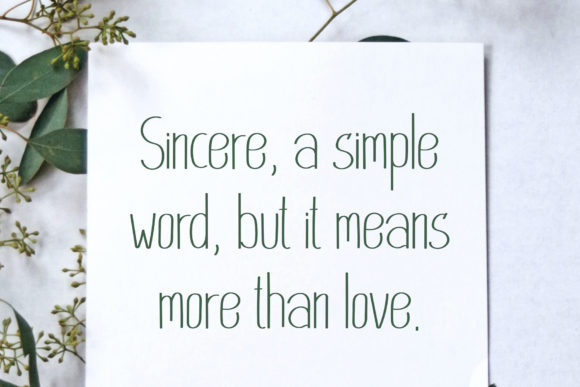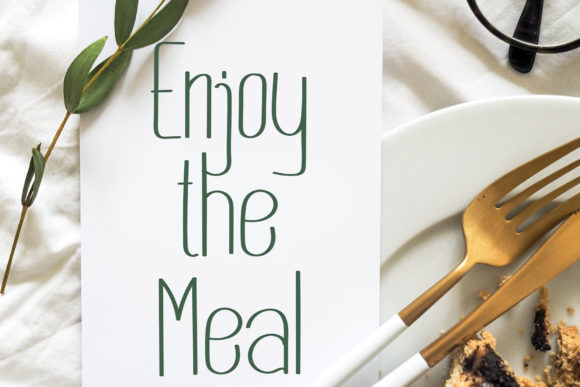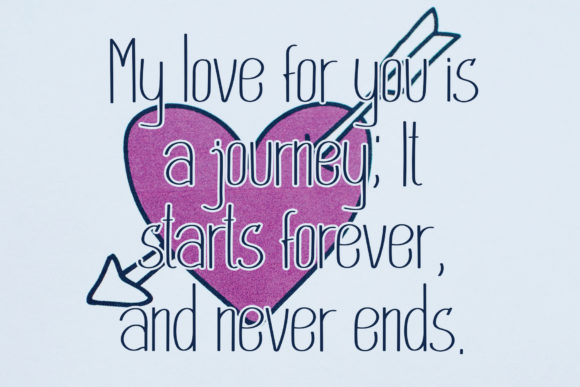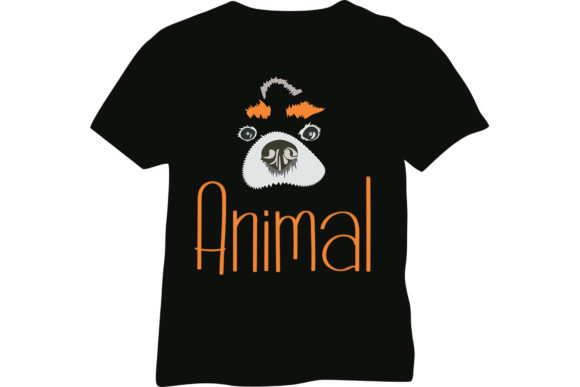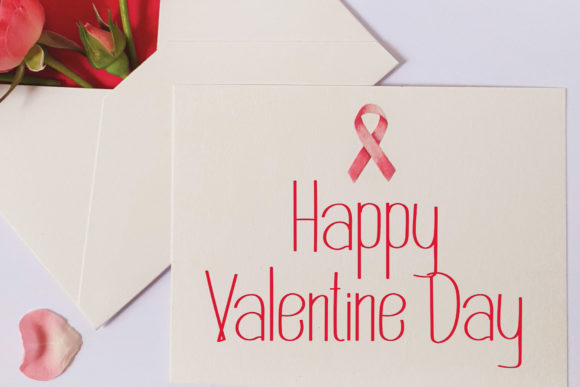
Brianna Font
About Brianna Font
Brianna is a clean, thin and friendly handwritten font. Its natural and unique style makes it incredibly fitting to a large pool of designs. Add it confidently to your projects, and you will love the results.